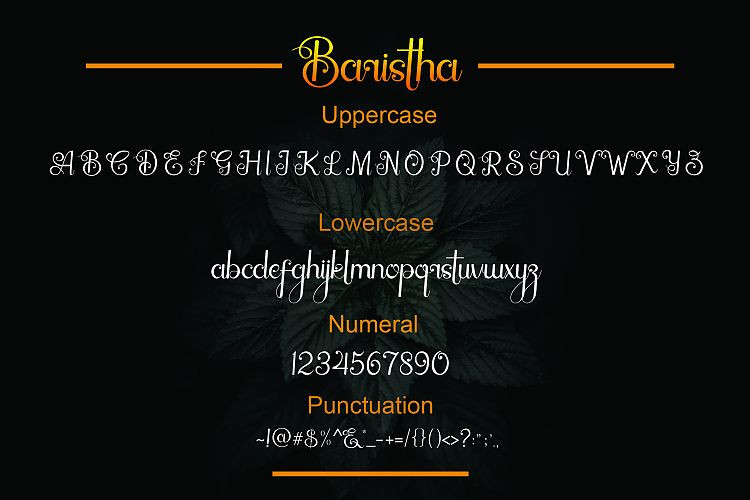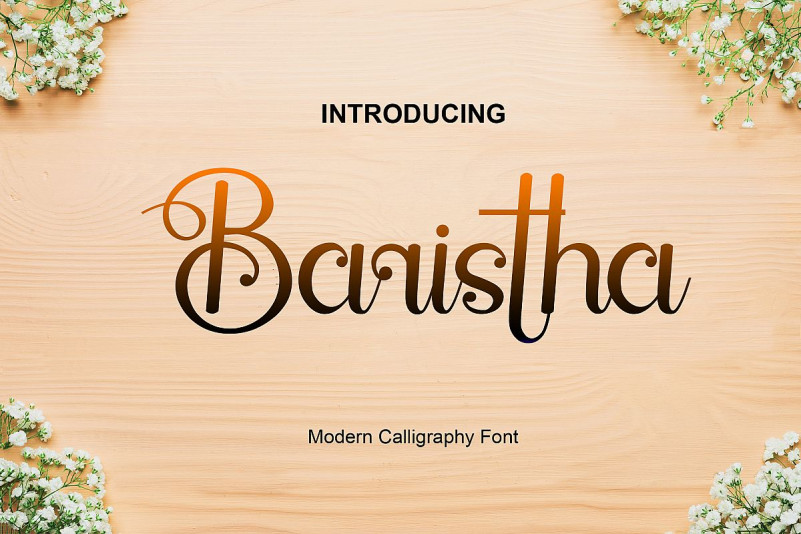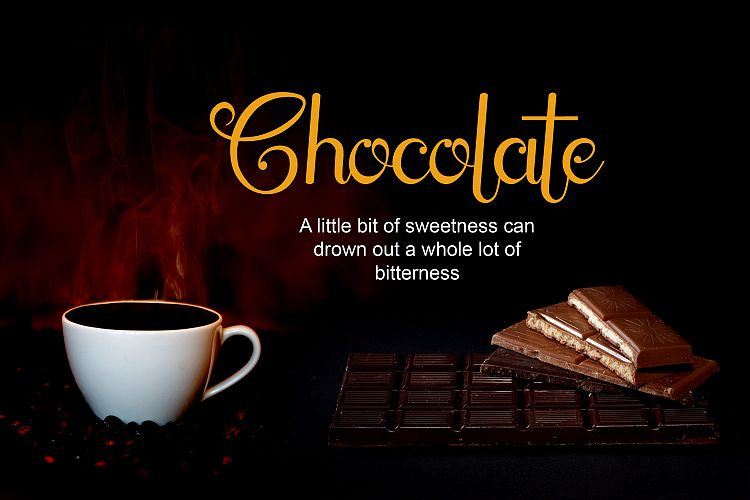
Baristha Font
INTRODUCING
Barista
Baristha is modern caligraphy font, imperfect style ups and downs,
like a dance letters, smooth, clean and simple.
every single letters have been carefully crafted to make your text looks beautiful.
This font will perfect for many different project ex:
logos
and branding, invitation, stationery, wedding designs, social media
posts, advertisements, product packaging, product designs, label,
photography, watermark, special events or anything.